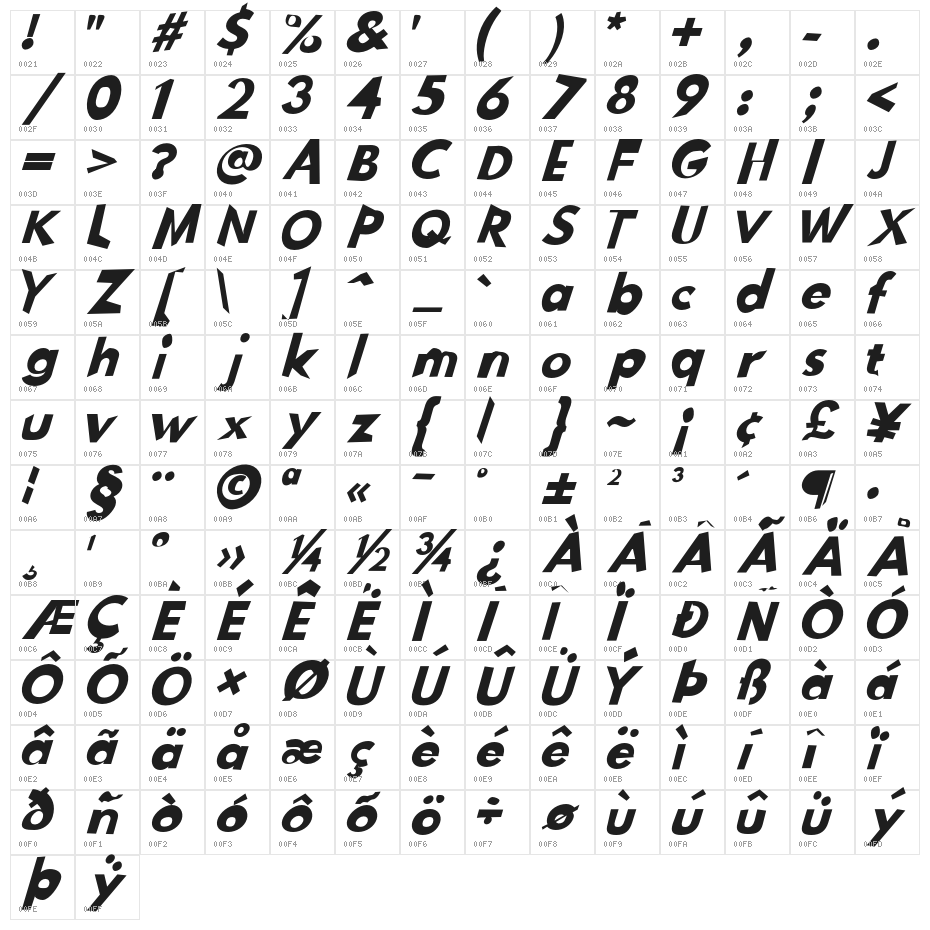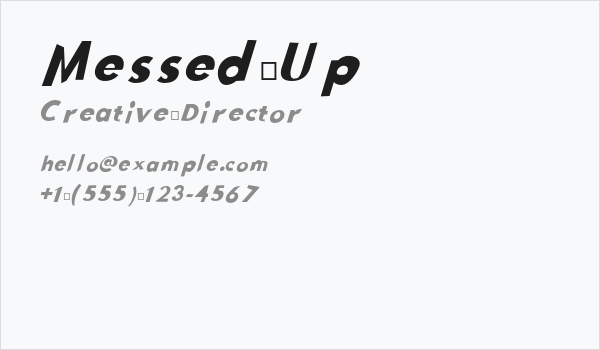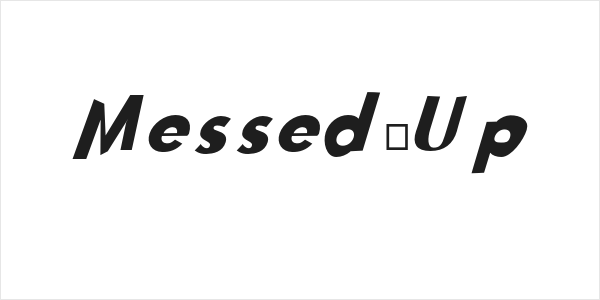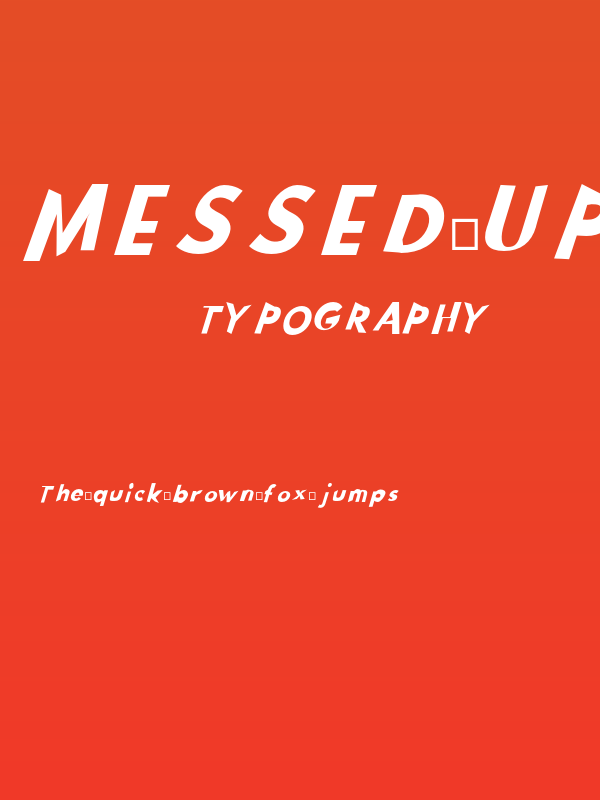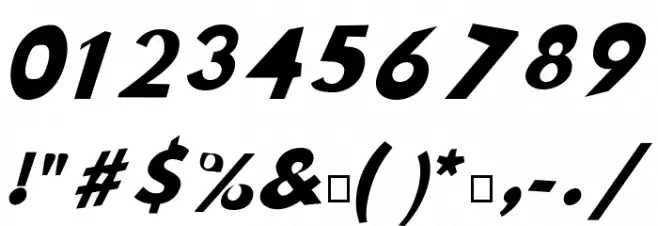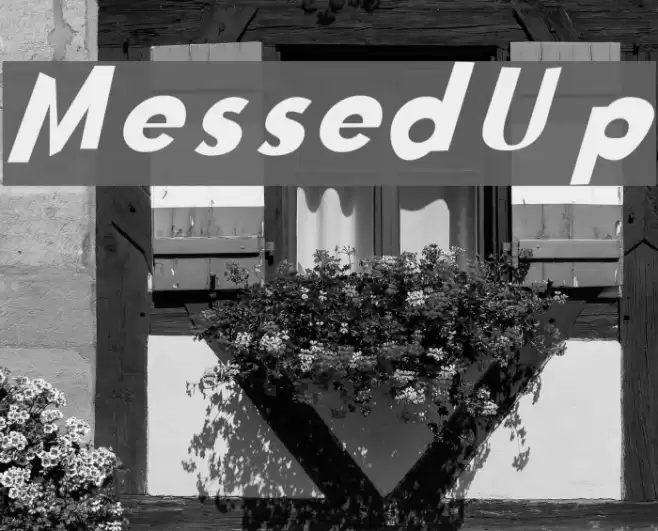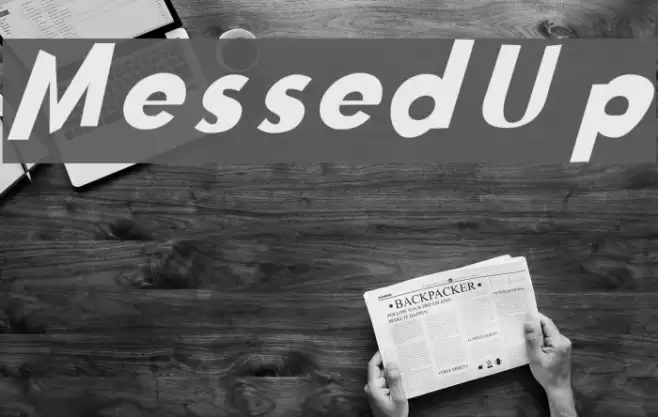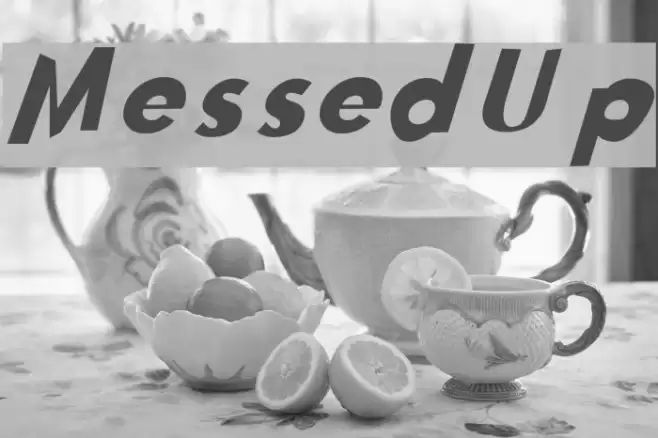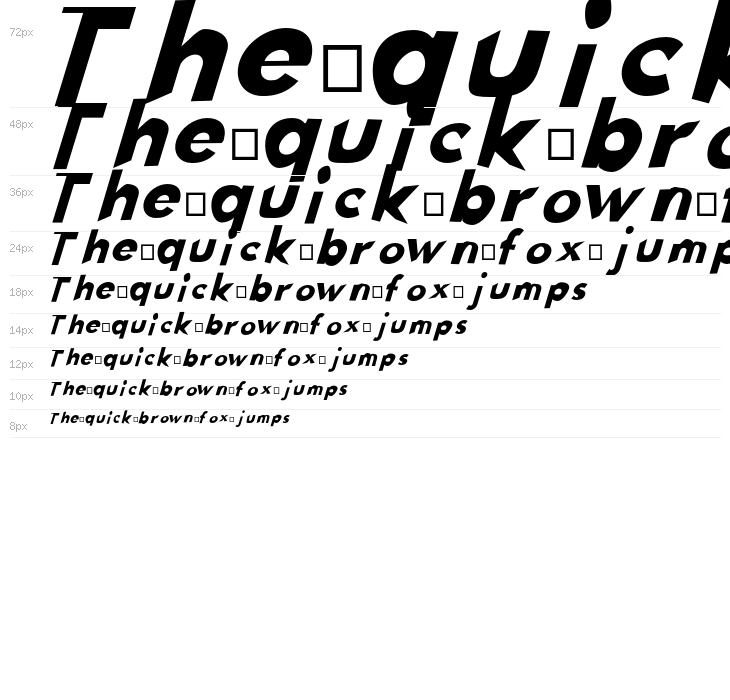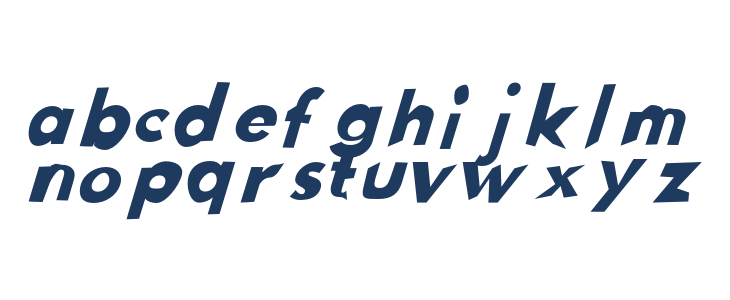
Messed Up Font
Messed Up Description
This font features a bold and dynamic style with a distinct slant, giving it a sense of motion and energy. The characters are slightly condensed, with sharp angles and clean lines that create a modern and edgy appearance. The uppercase letters are particularly striking, with unique shapes that stand out, while the lowercase letters maintain a consistent flow. The numerals are bold and easily readable, complementing the overall design. Special characters are well-integrated, maintaining the font's cohesive look. This font's strong presence makes it ideal for attention-grabbing designs.